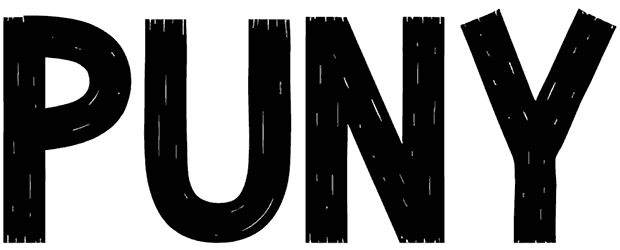
Puny Font
Puny can turn even the most severe messages into something simple and enjoyable. This cartoon font reminds us that sometimes it’s okay to be silly and let our imaginations run wild.